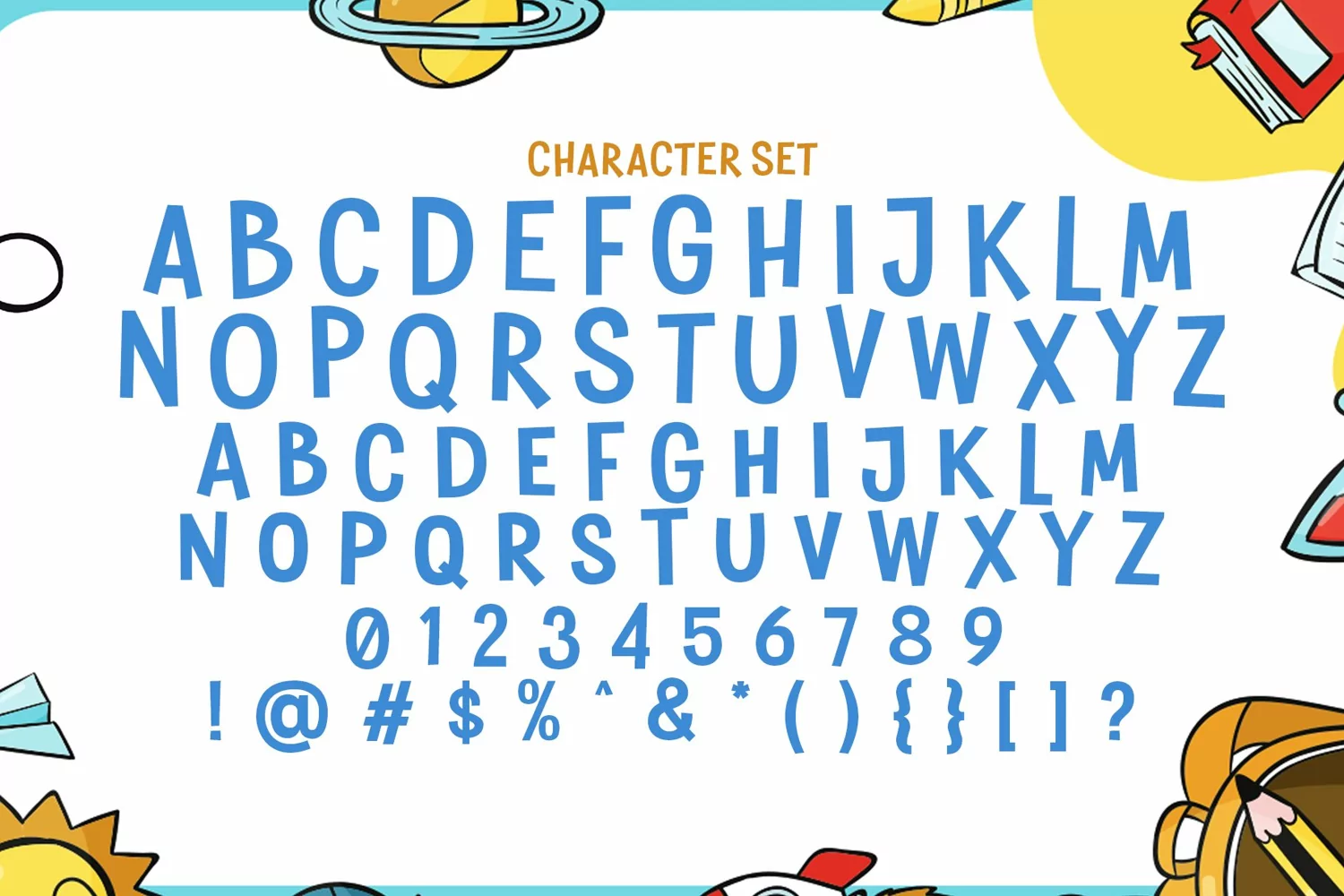
Shortcuts is made with the perfect combination of each character and easy to get a unique combination of letters. It looks original and can be used for all your project needs.